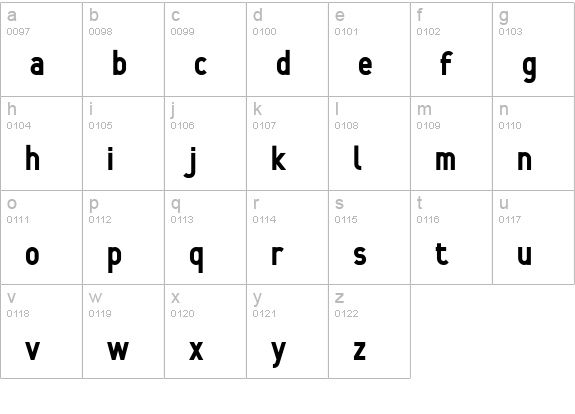
Min-Four Font Details
Introducing Min-Four font, a sleek and modern typeface that is perfect for adding a touch of sophistication to your design projects. This versatile font features clean lines and a contemporary style that is sure to make your text stand out. With its minimalist yet elegant design, Min-Four is ideal for a wide range of applications, from branding to editorial design. What sets Min-Four apart is its incredible readability, making it a top choice for both print and digital projects. Whether you're creating business cards, posters, or website headers, this font will ensure that your message is conveyed effectively and stylishly. The best part is, Min-Four font is available for free download exclusively at FontsMarket.com. So why wait? Elevate your design projects with the sophisticated charm of Min-Four today!